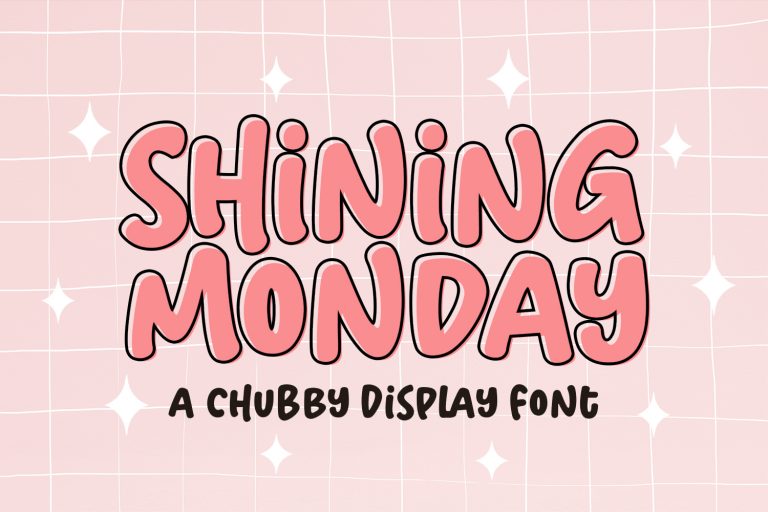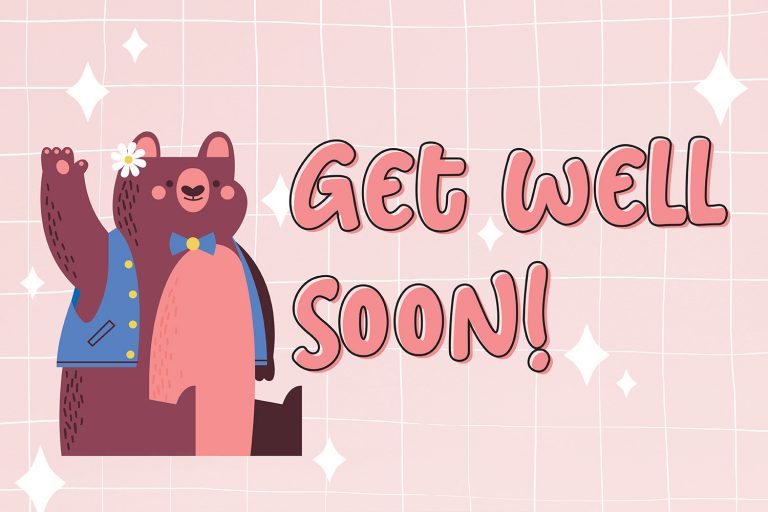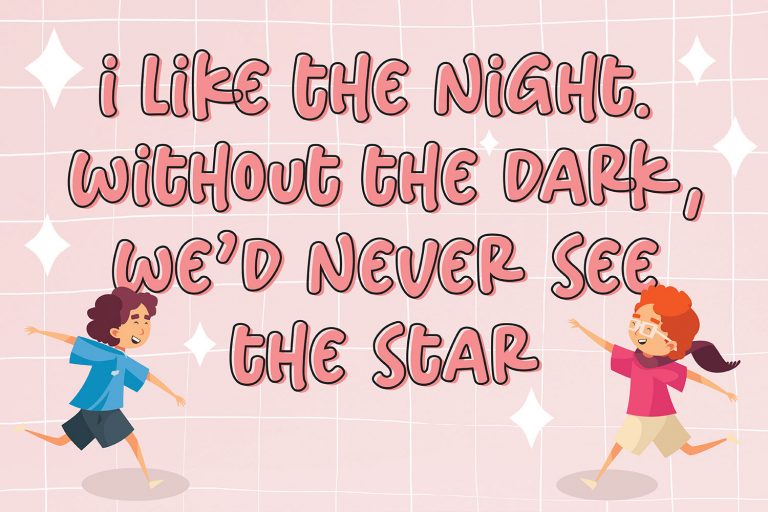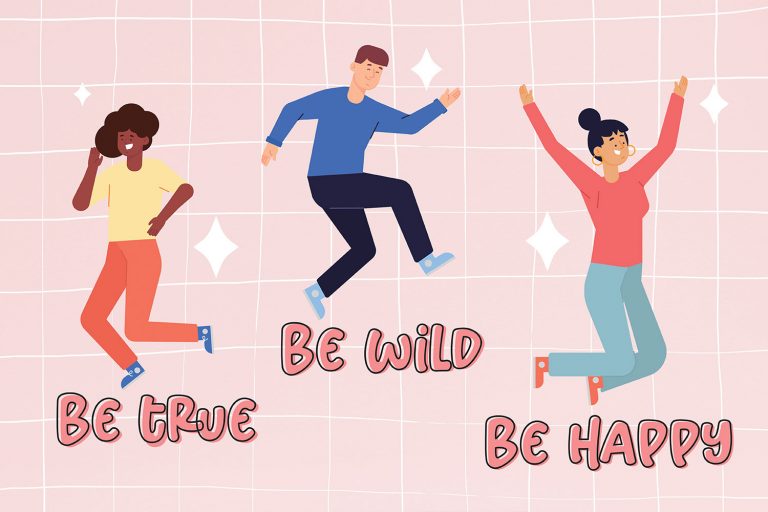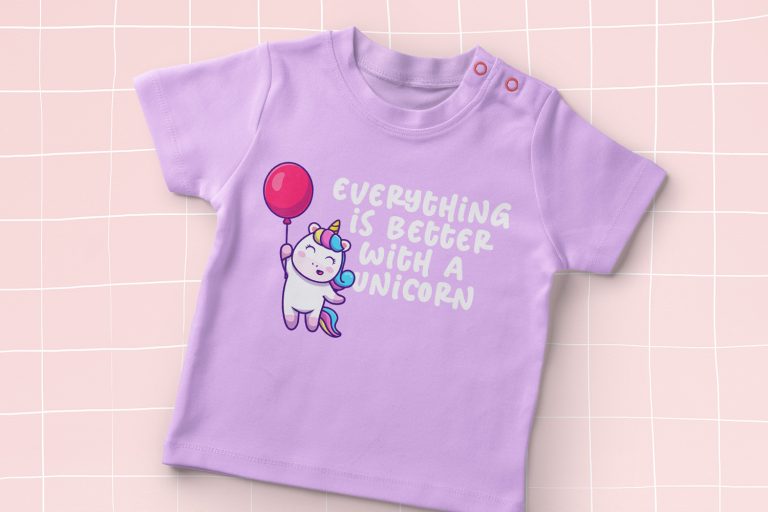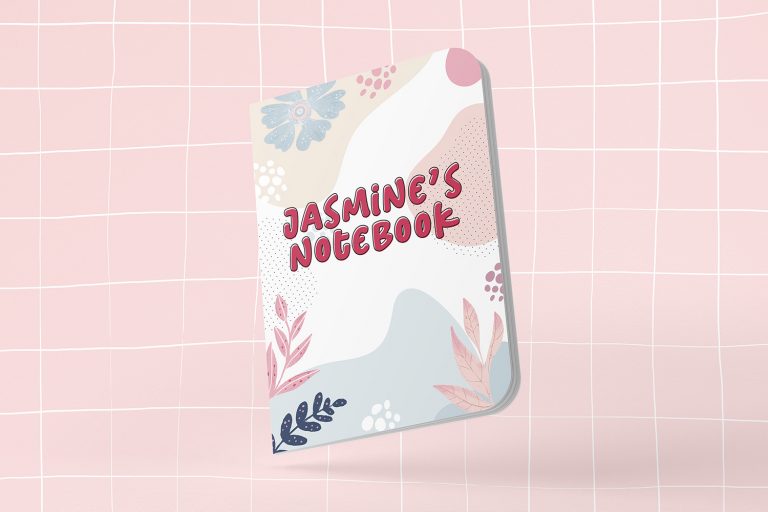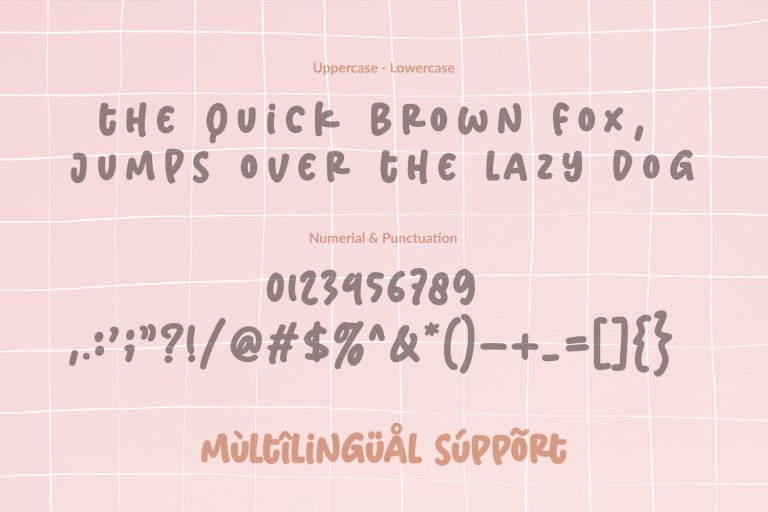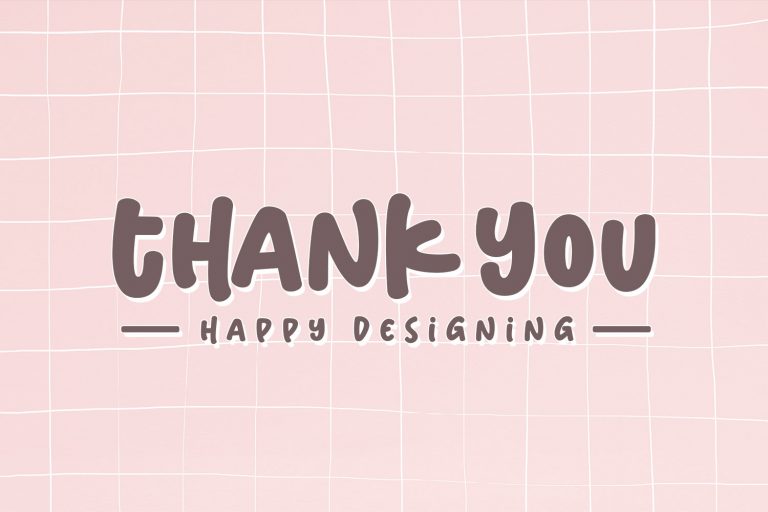
- Shining Monday – Cute Display Font
Shining Monday is a fun and whimsical paint brushed display font.
This font is perfect for children themed designs, especially when combined with bright colors.